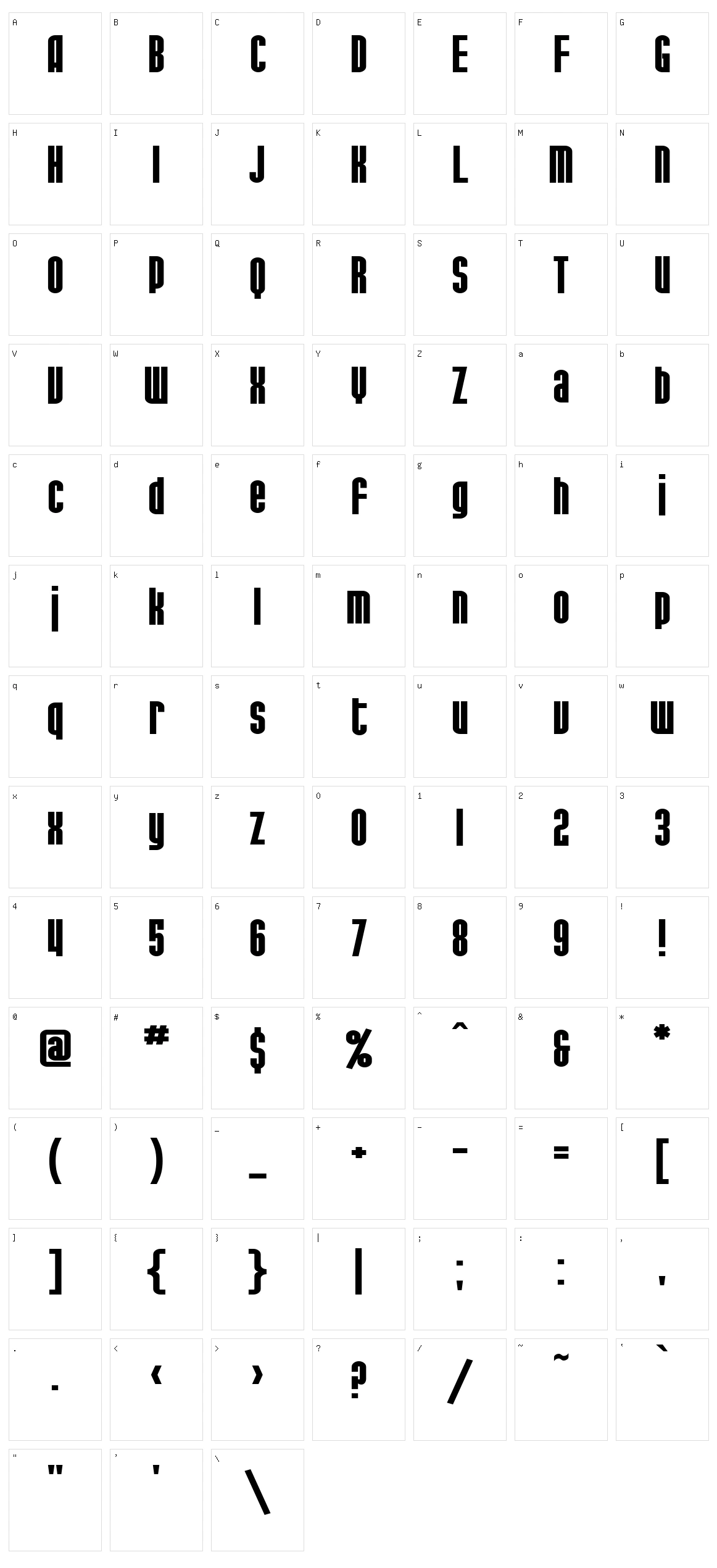
SF Port McKenzie - Version 1.0 - Features
- Includes complete character set (lowercase and uppercase letters,
numbers, punctuation, and accented characters).
- Proper spacing and kerning.